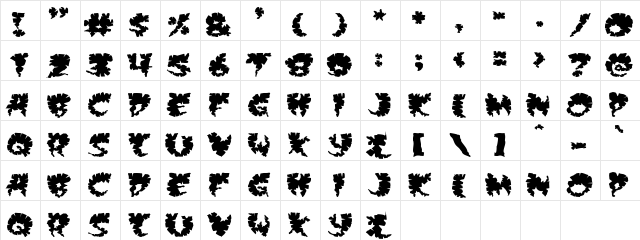
Pingpong Regular
Design Context for Pingpong Typeface
Pingpong is a composed and adaptable typeface that performs quietly and consistently across a wide range of design contexts.